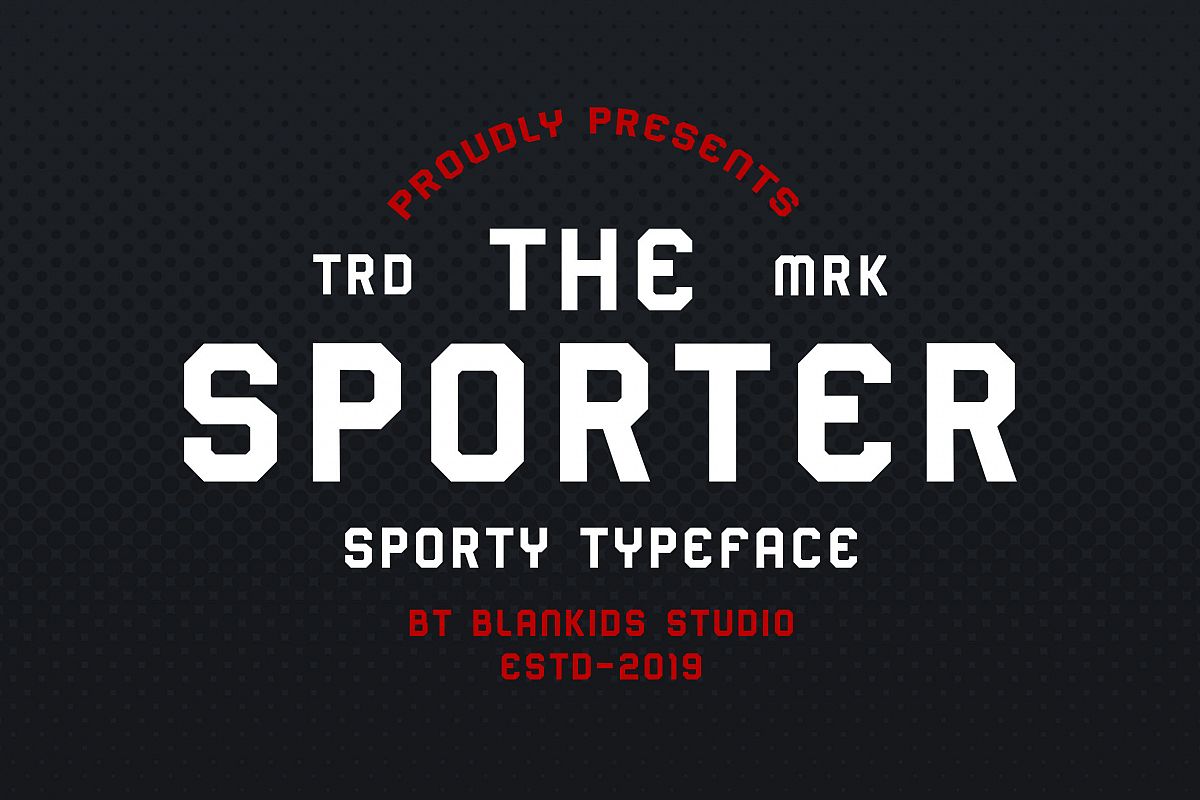
Introducing of our new product the name is Sporter a sporty display typeface. Sporter good for logotype, label, badge, headline, signature, packaging and any more.
MULTILINGUAL ACCENT :
* ŽžŠŒšŸÀÁÂÃÄÅÆÇÈÉÊËÌÍÎÏÐÑÒÓÔÕÖØÙÚÛÜÝßàáâãäåæçèéêëìíîïñòóôõöøùúûüýÿ
* Uppercase
* Lowercase
* Number
* Punctuation
* Multilingual